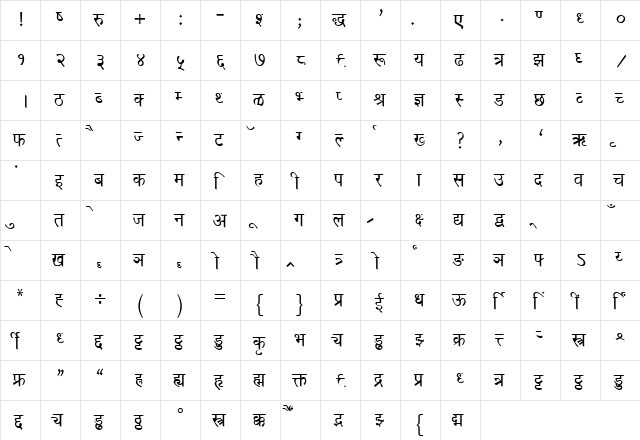
DevLys 020 Bold
Design Context for DevLys 020 Typeface
DevLys 020 is a composed and adaptable typeface that performs quietly and consistently across a wide range of design contexts. Its bold stroke weight gives it real presence on the page.